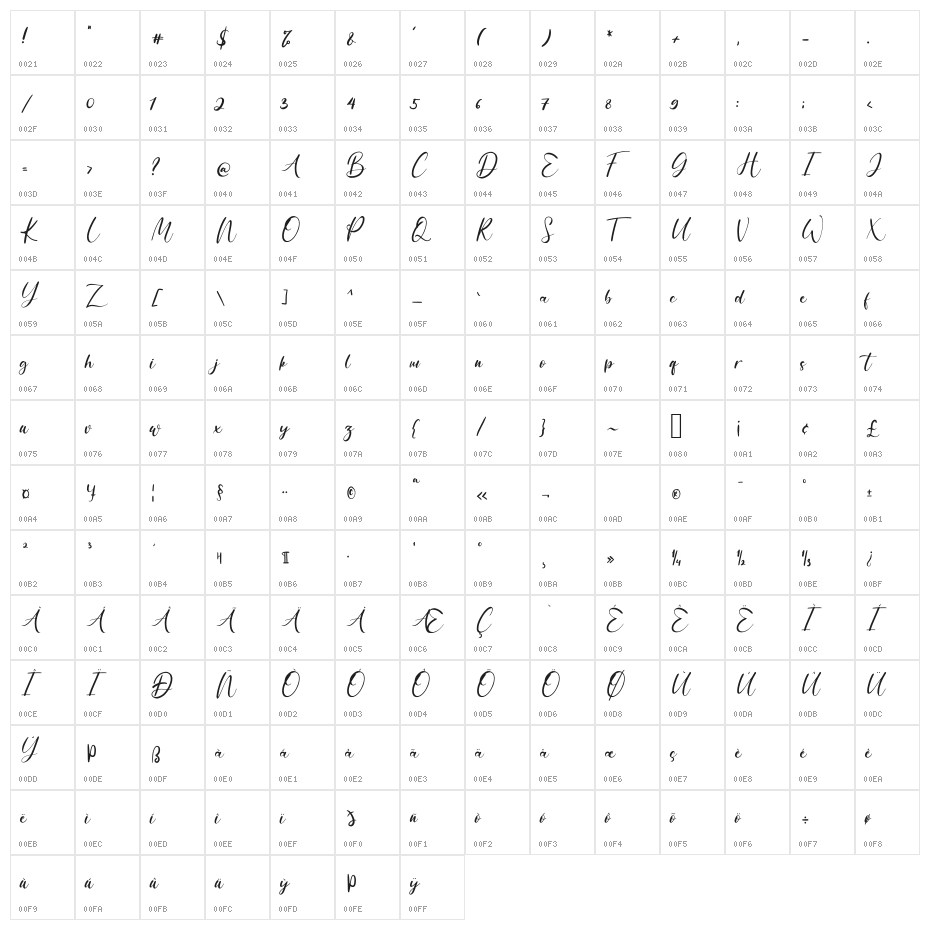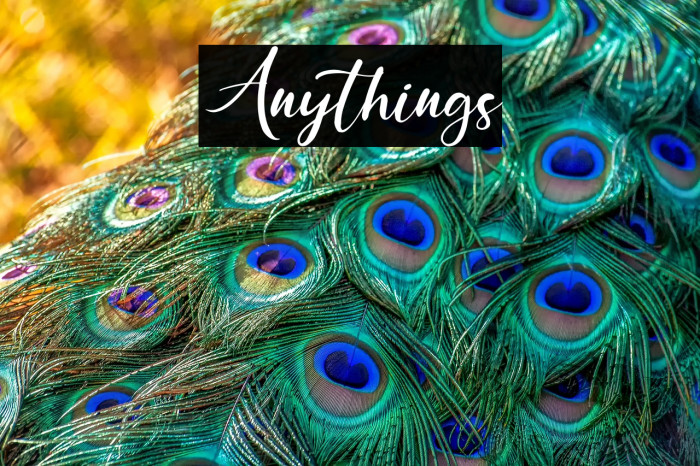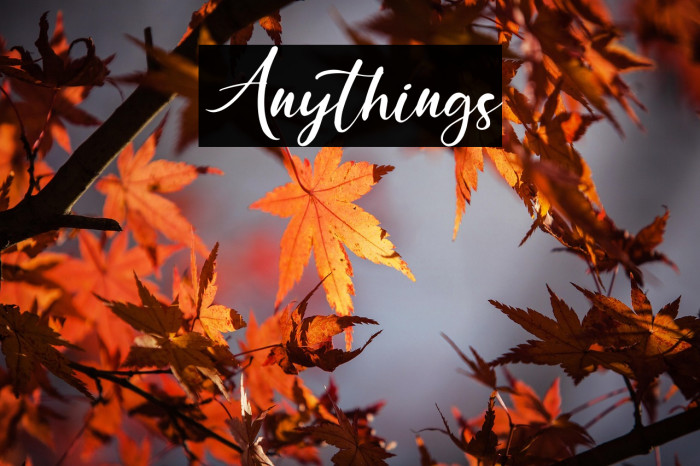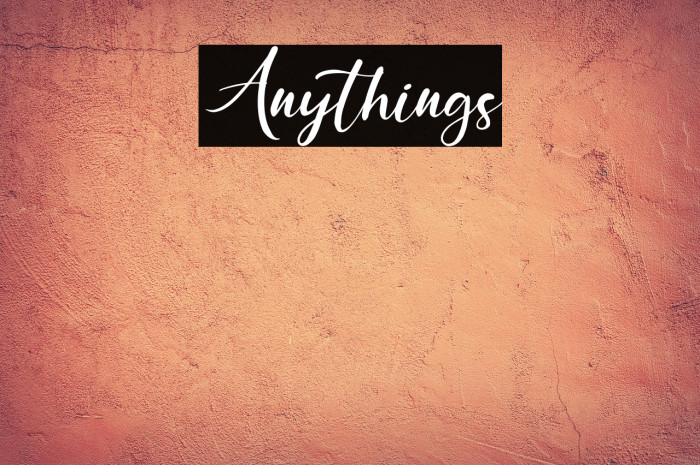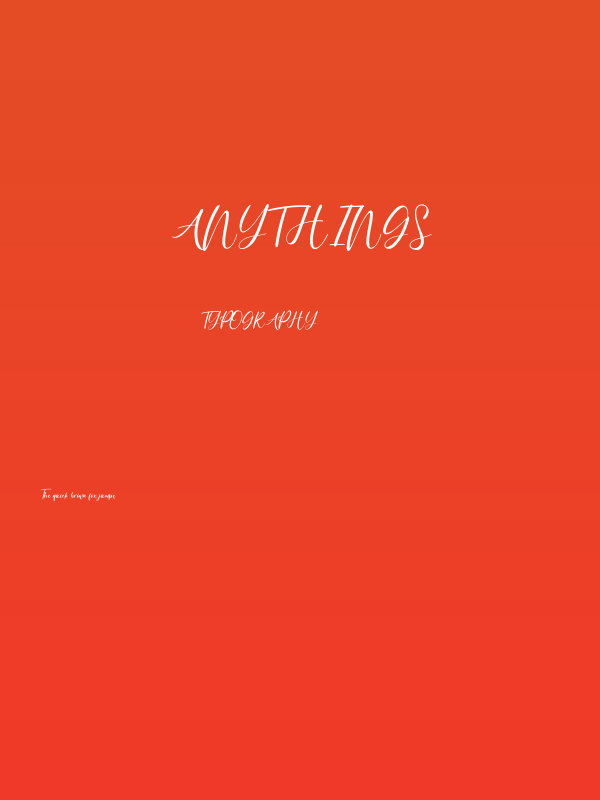
Anythings Font
| Gesamtstil | Elegant, Handwritten |
| Anwendungsfall | Invitations, Branding, Packaging |
| Vorgeschlagene Projekte | Ideal for wedding invitations, greeting cards, branding, and elegant packaging designs. |